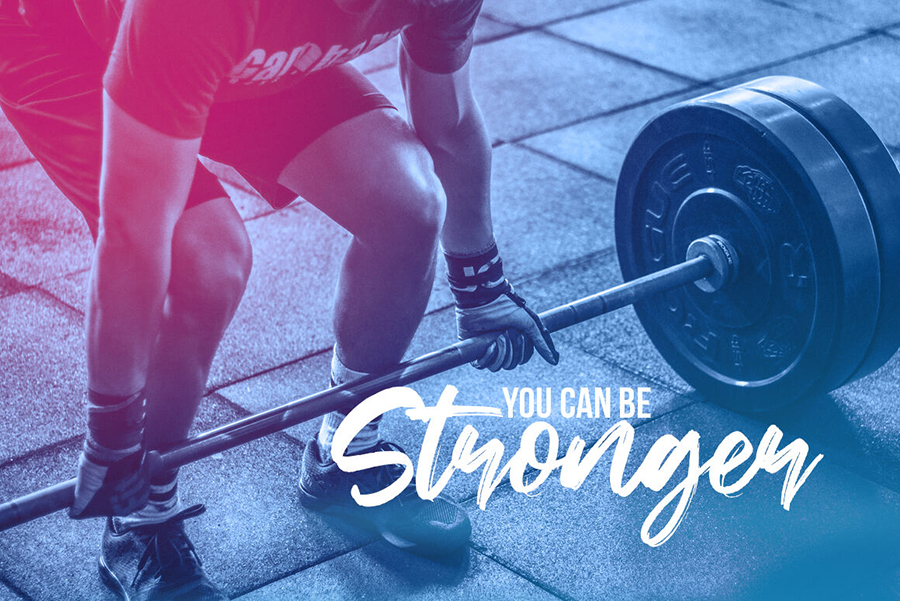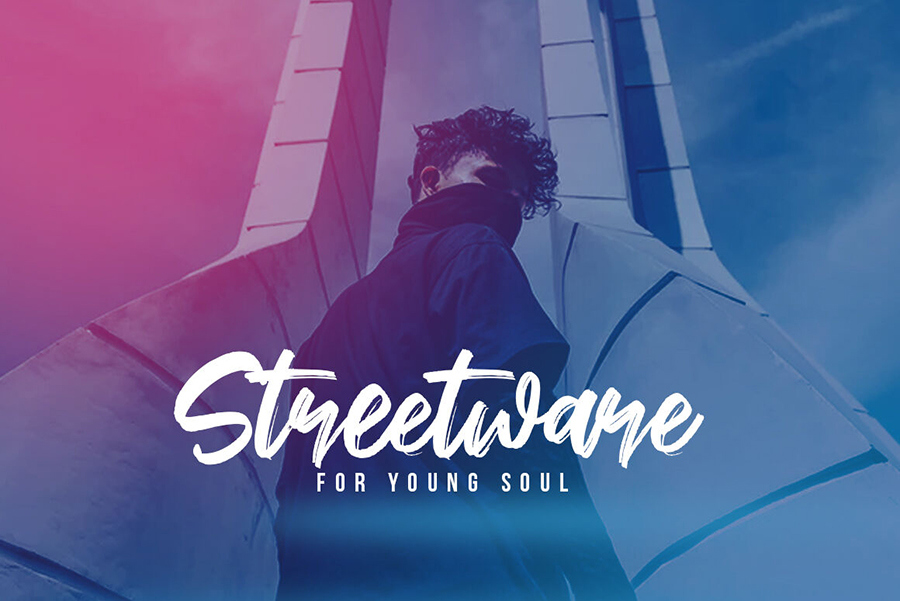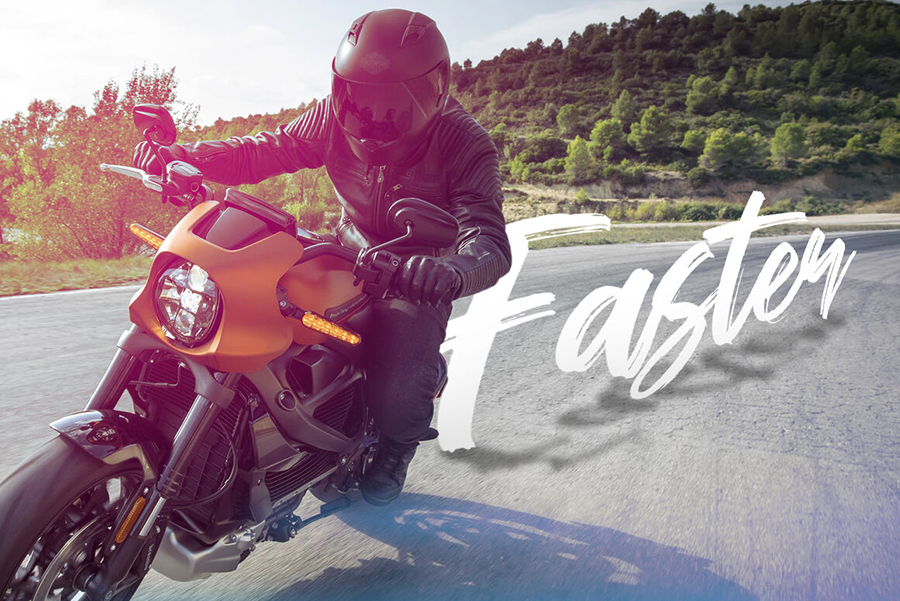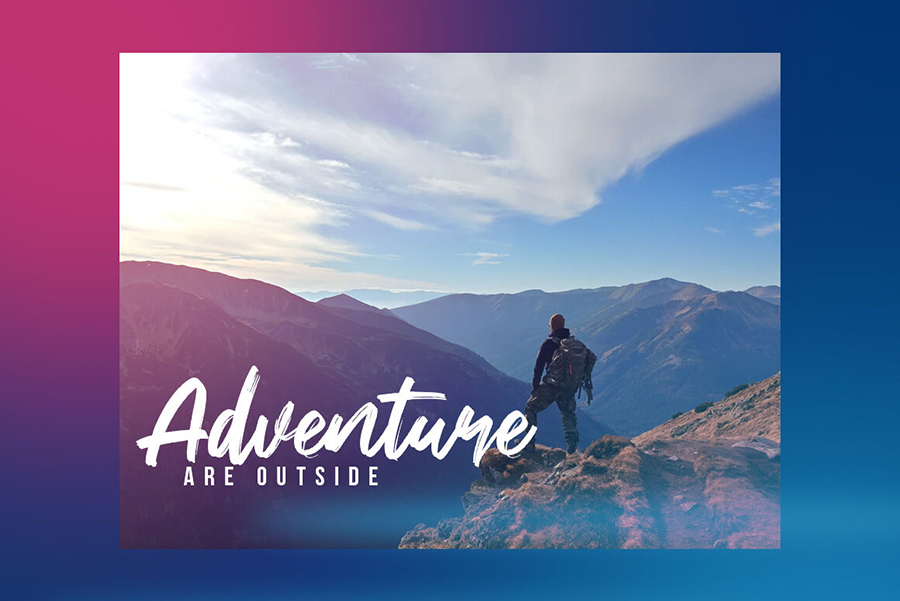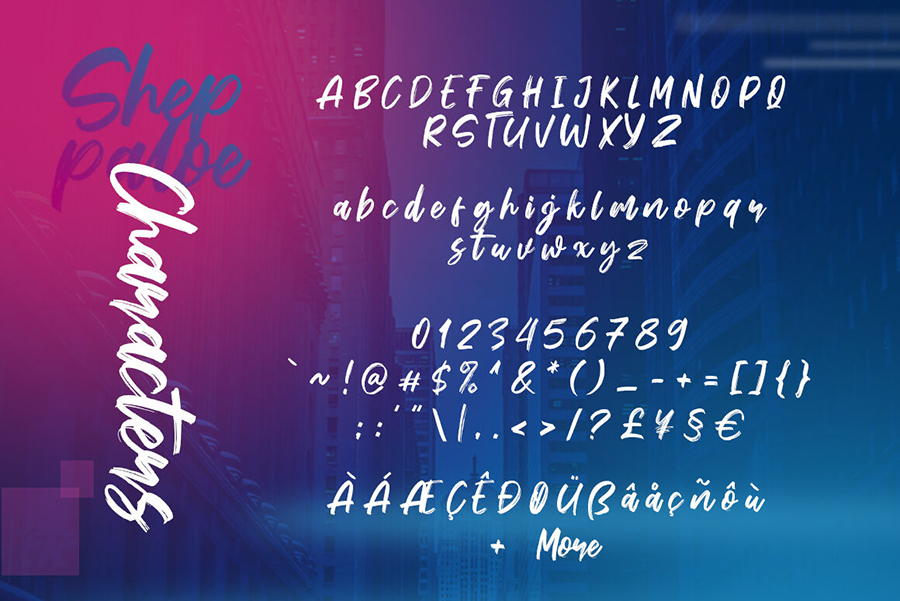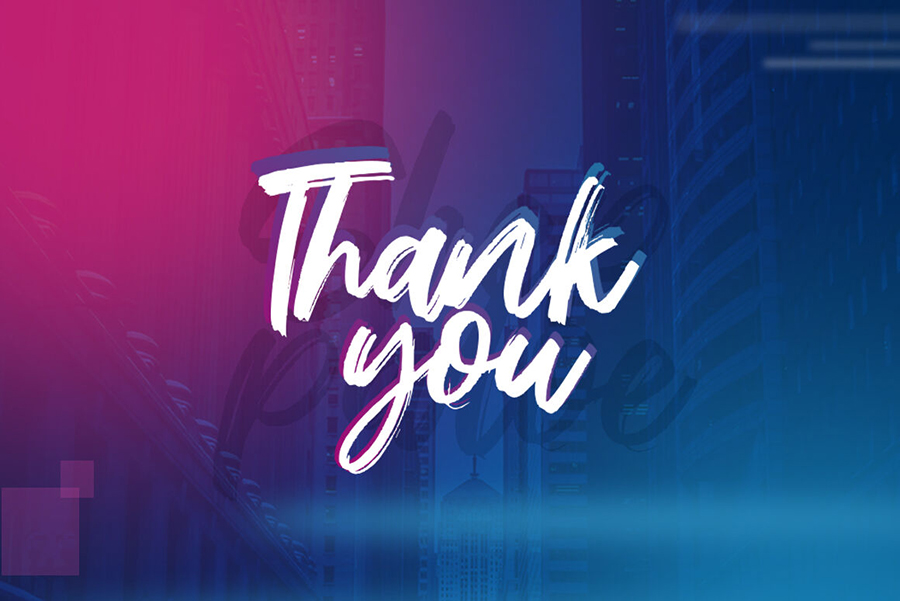
Sheppaloe Script Free Demo
Sheppaloe Script Free Demo is a fresh handwritten font brush, elegant and vintage feel character set. The Sheppaloe font includes a full set capital and lowercase letters, as well as multi-lingual support, currency figures, numerals, & punctuation.